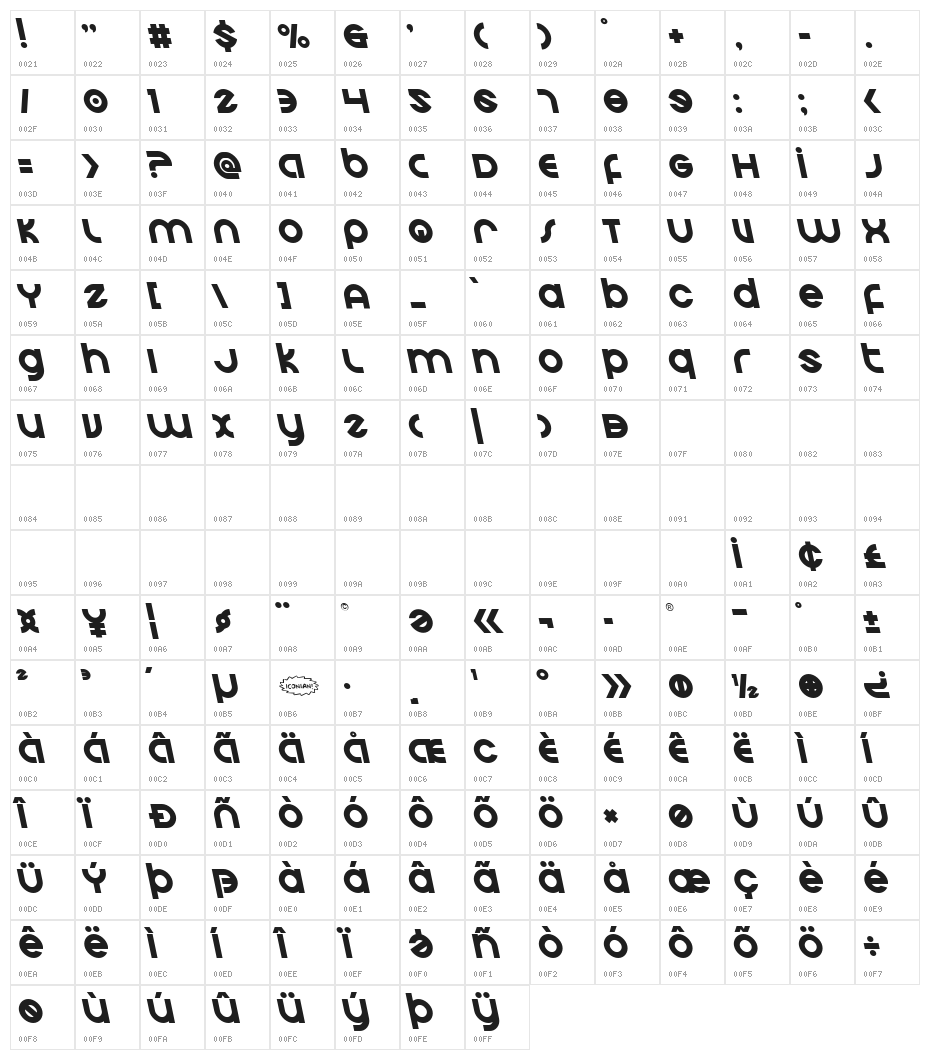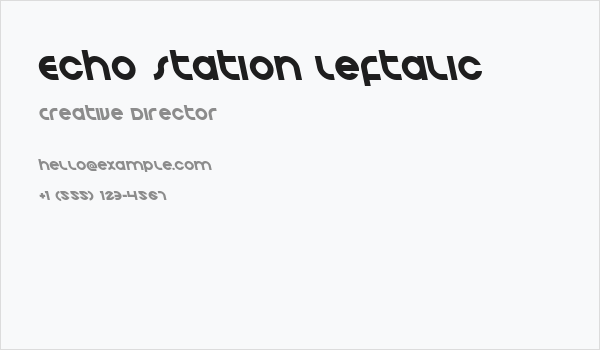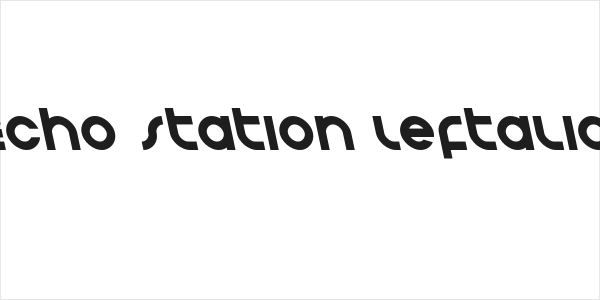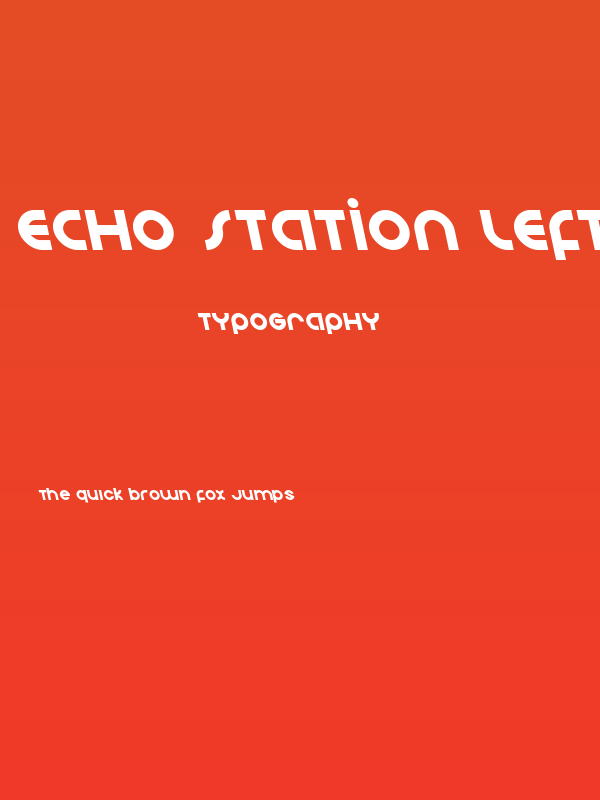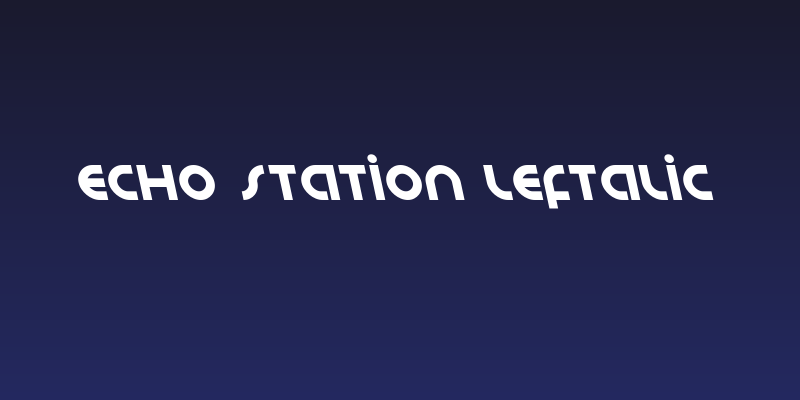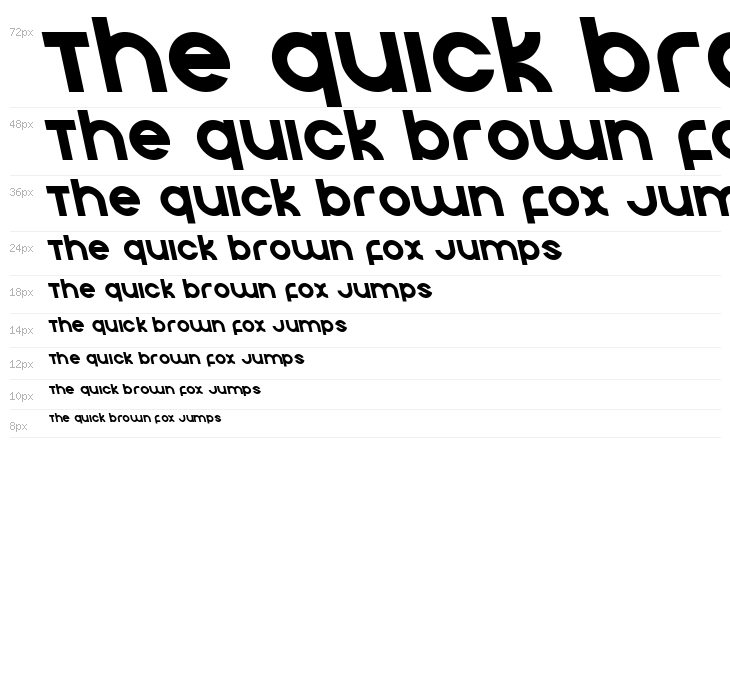
Echo Station Leftalic Font
Echo Station Leftalic Description
This font features a bold, geometric style with a futuristic flair. The characters are constructed with smooth, rounded edges and consistent stroke widths, creating a cohesive and modern appearance. The uppercase and lowercase letters maintain a uniform height, contributing to a balanced and harmonious look. The numerals and special characters are designed with the same geometric precision, ensuring a seamless integration across all text elements. This font's unique style is both eye-catching and versatile, making it suitable for a variety of design applications.
Proposed ProjectsIdeal for branding, posters, digital interfaces, and futuristic-themed designs.